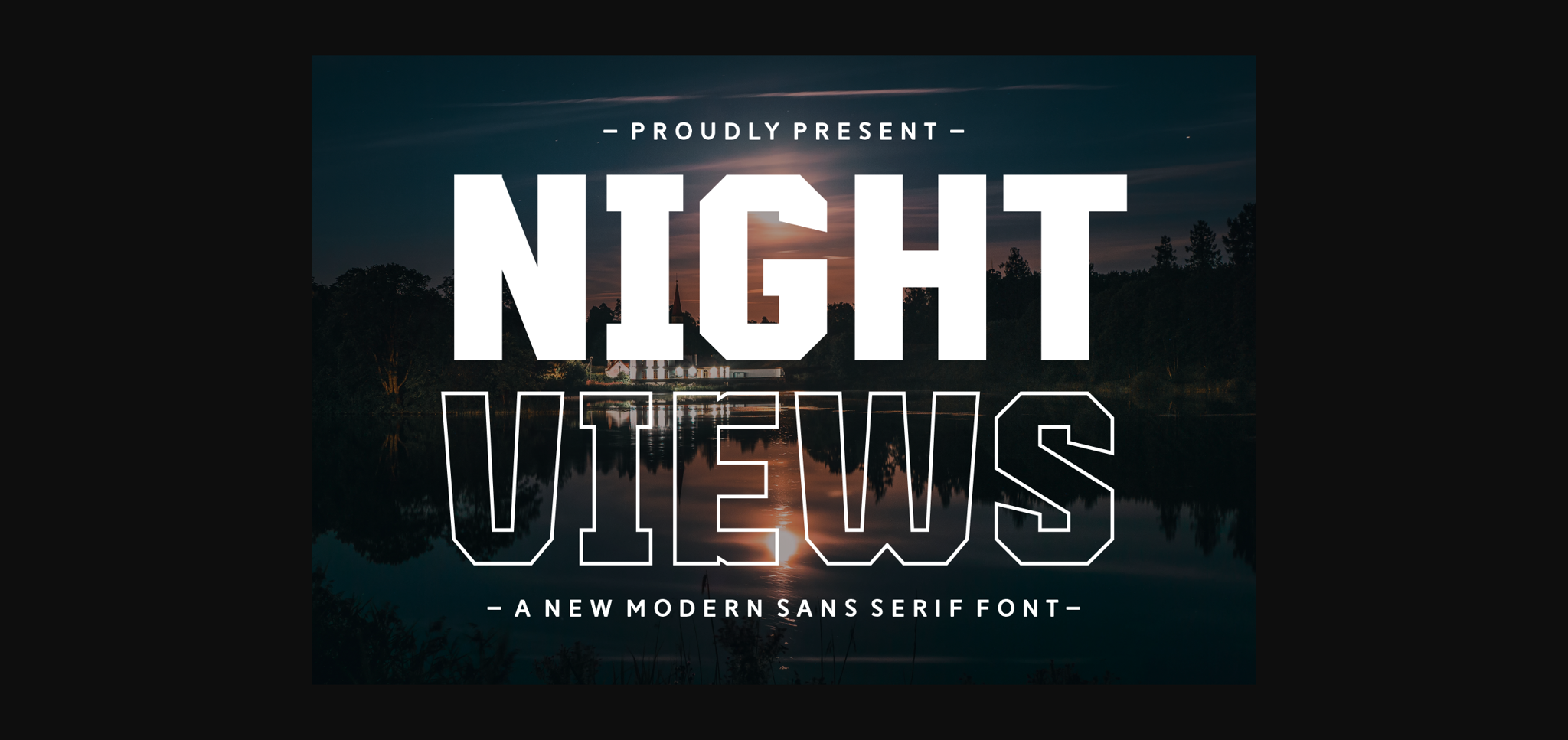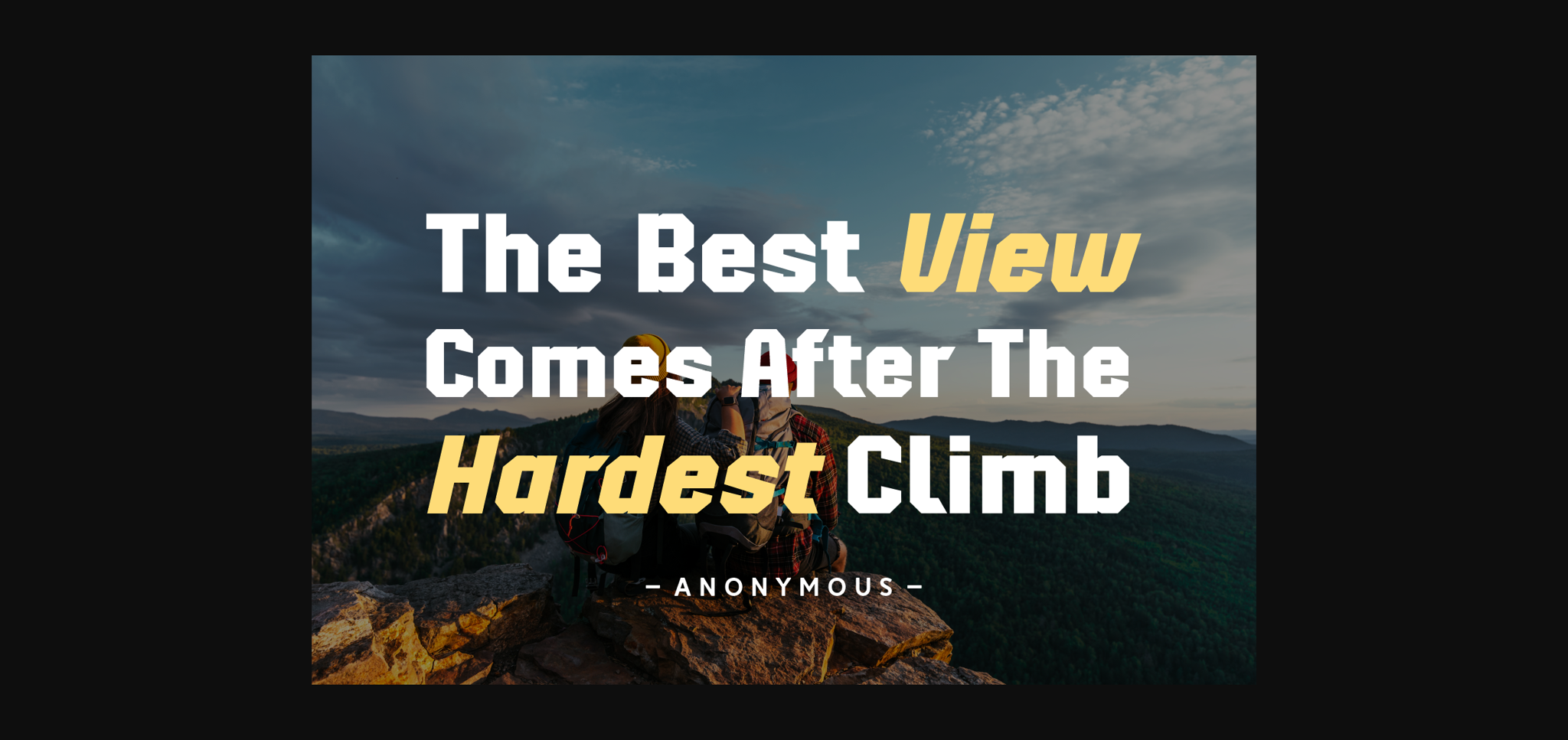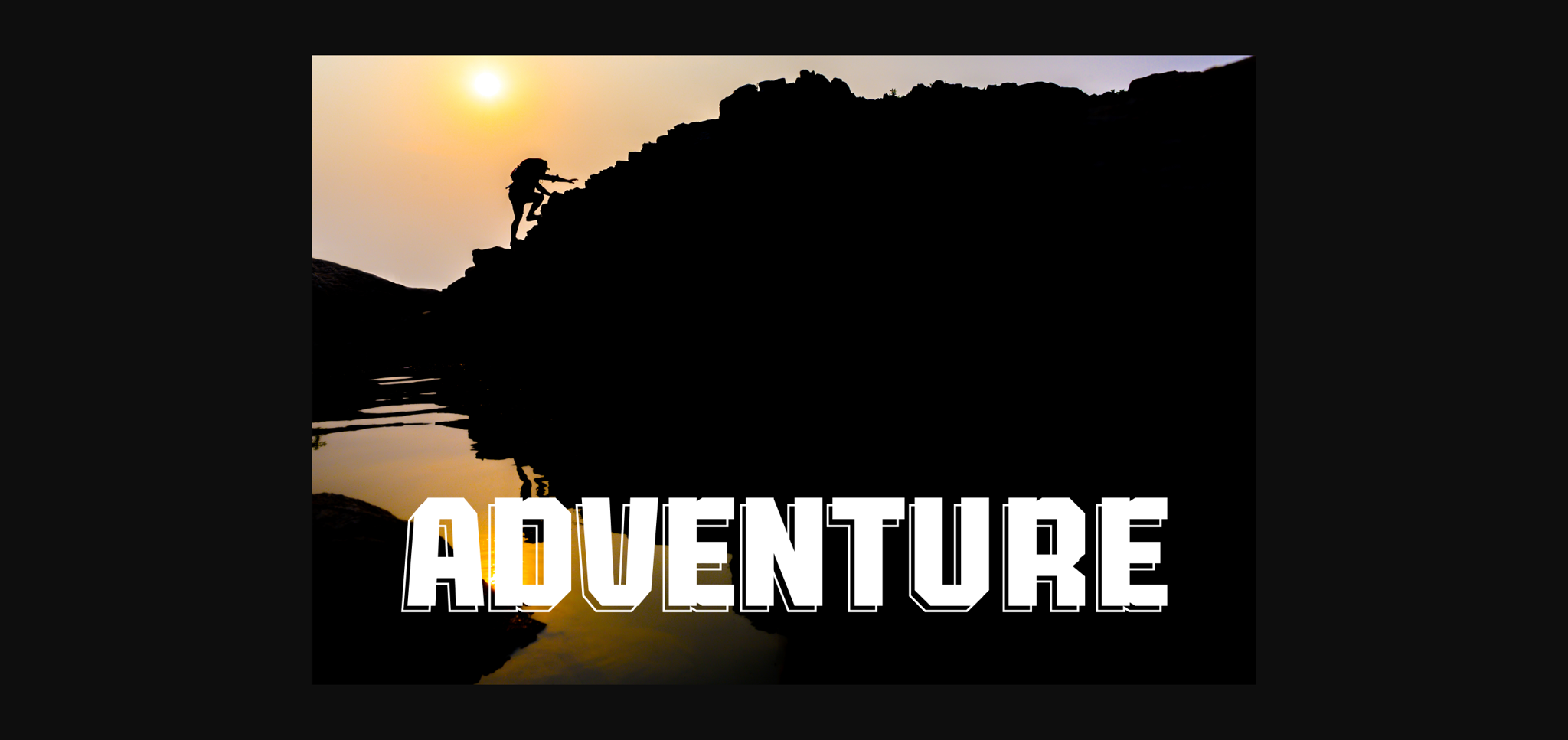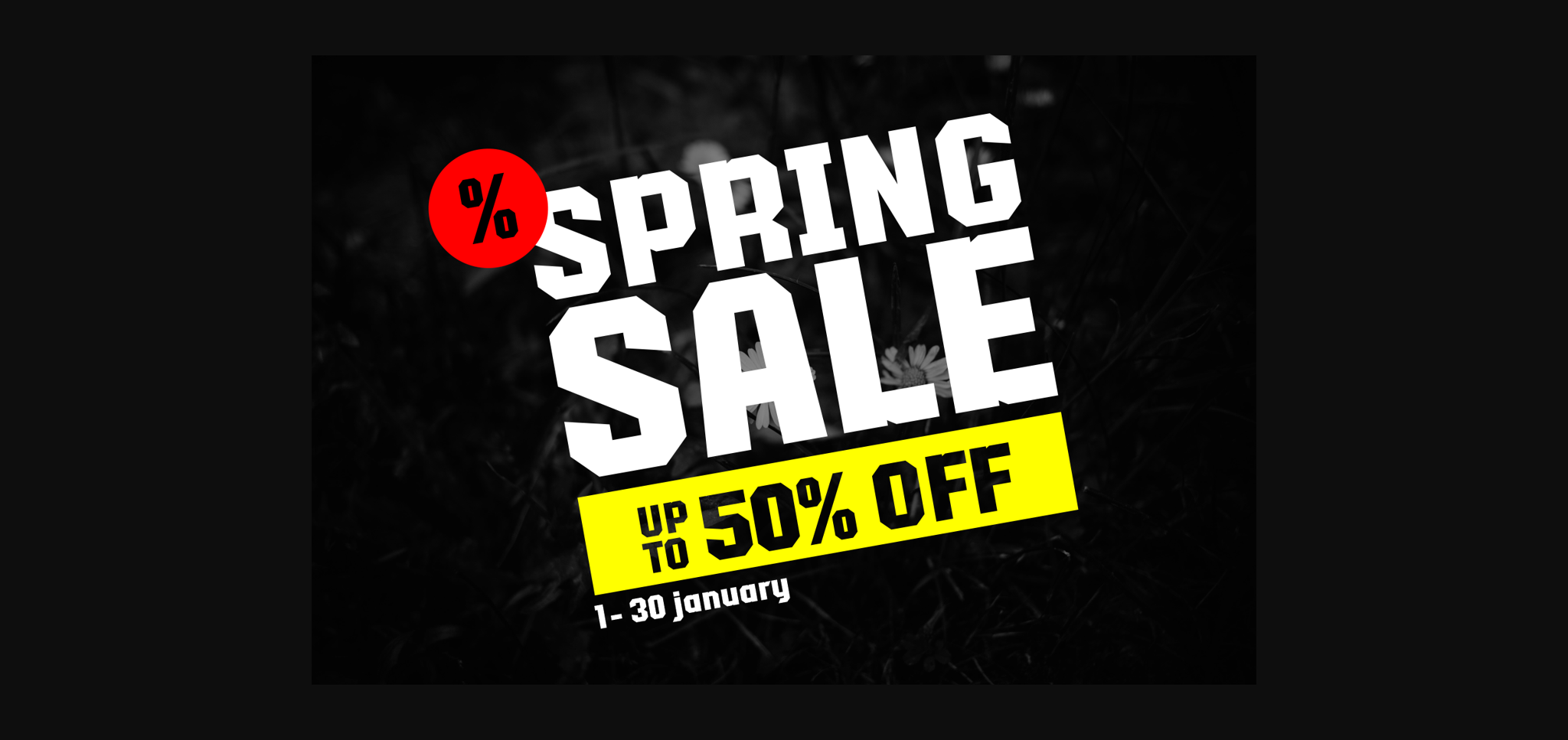
About Night Views Font
Night Views is a stylish modern display font that brings a contemporary edge to your projects. With clean lines and a sleek design, this sans serif font is perfect for creating a bold and impactful visual statement. Whether you’re designing a poster, logo, or any display text, Night Views adds a touch of sophistication to your work. Elevate your design with the simplicity and modernity of Night Views for a sleek and eye-catching outcome.